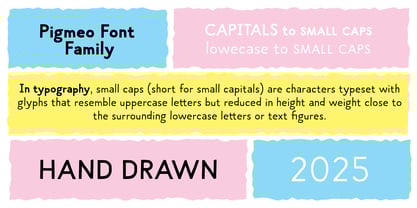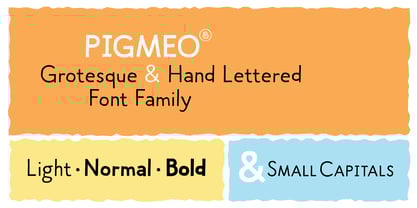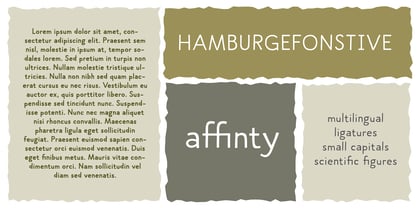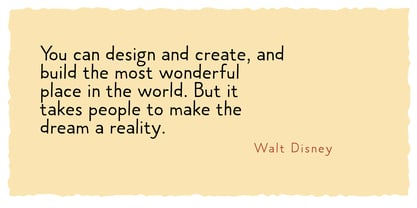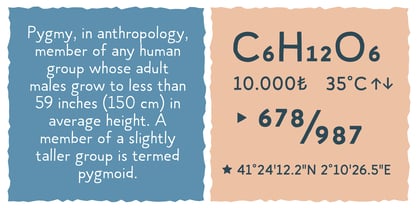
Pigmeo
by Ahmet Altun
The Pigmeo Font Family was designed by Ahmet Altun and published by Ahmet Altun. Pigmeo contains 3 styles and family package options.
Pigmeo is a hand-drawn font family consisting of 3 weights: light, normal and bold. The letter heights of uppercase and lowercase letters are shorter than standard font heights. Small Capitals, figures are available to create scientific formulae. With its cute and hand-drawn natural structure, it can be an excellent font choice for business cards, posters, packaging, product promotions and all kinds of graphic design works.